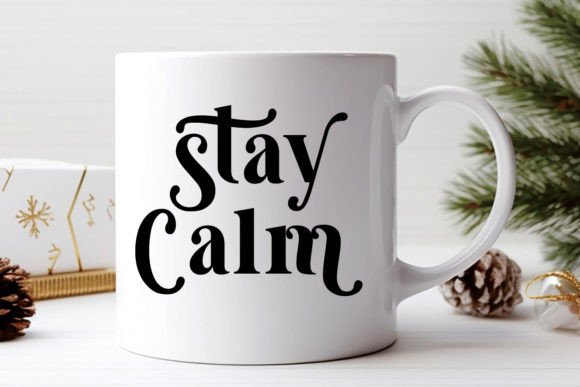
Merry Christmas Font
Introducing Merry Christmas—a delightful serif font that captures the spirit of the holiday season with elegance and charm. Perfectly suited for Christmas, New Year, winter, Easter, and Thanksgiving themes, this versatile font adds a festive touch to your creative projects. Whether you’re working on Cricut designs, embroidery, crafts, or lettering, Merry Christmas delivers a clean and modern aesthetic that’s both timeless and joyful.